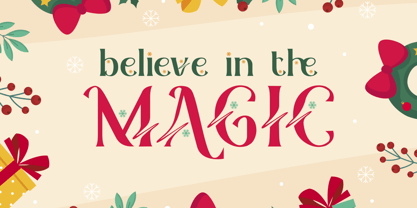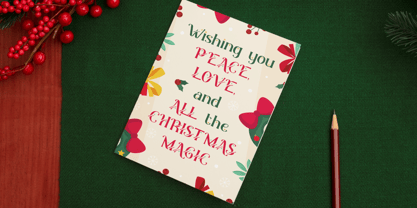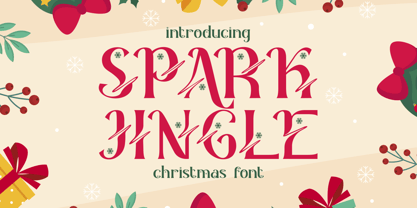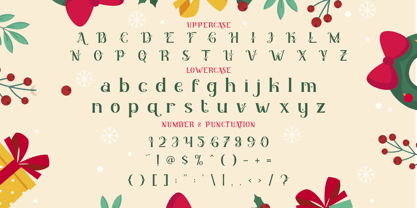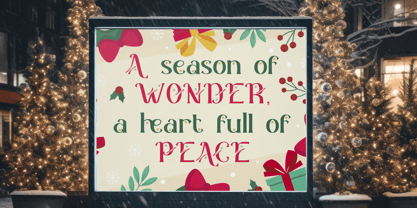
Spark Jingle
by Shanaf
The Spark Jingle Font Family was designed by Yesie Erma Yunita and published by Shanaf. Spark Jingle contains 1 styles. More about this family
Spark Jingle is a charming Christmas font crafted to light up your seasonal projects with festive flair. Each letter features delightful swashes that resemble candy cane strokes and twinkling snowflakes, creating a playful yet elegant typographic presence. The design balances classic serif structure with joyful embellishments, delivering a high-impact holiday tone. With alternating letterforms and soft curves, this font adds cheer and sophistication to every word. It stands out beautifully on light or warm backgrounds, making it a go-to choice for greeting cards, festive posters, and holiday packaging.
Ideal for Christmas-themed branding, invitations, and decorative headlines, Spark Jingle brings a handcrafted winter vibe to your design toolkit. Its multi-case versatility and whimsical ornaments make it suitable for digital use or print. Whether used in social media posts, wrapping paper, or New Year campaigns, this font instantly conveys holiday spirit. Elevate your festive typography and let your message sparkle with seasonal charm.
Designers: Yesie Erma Yunita
Foundry: Shanaf